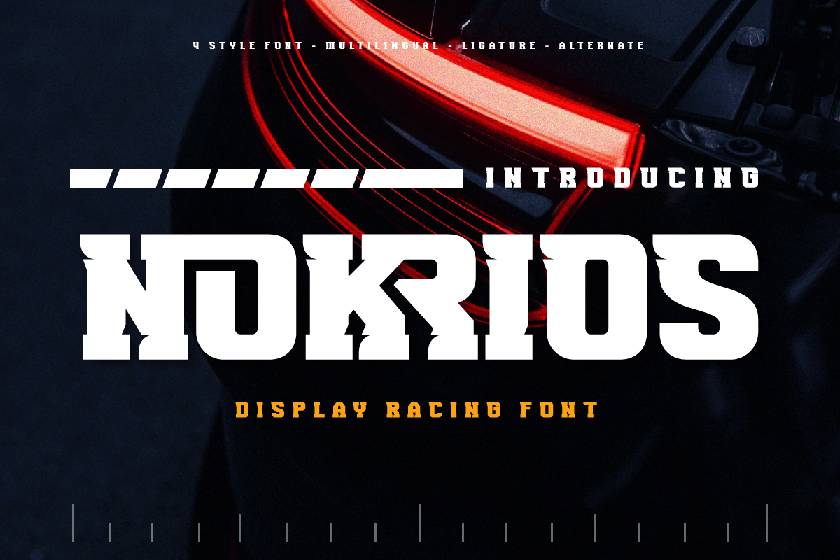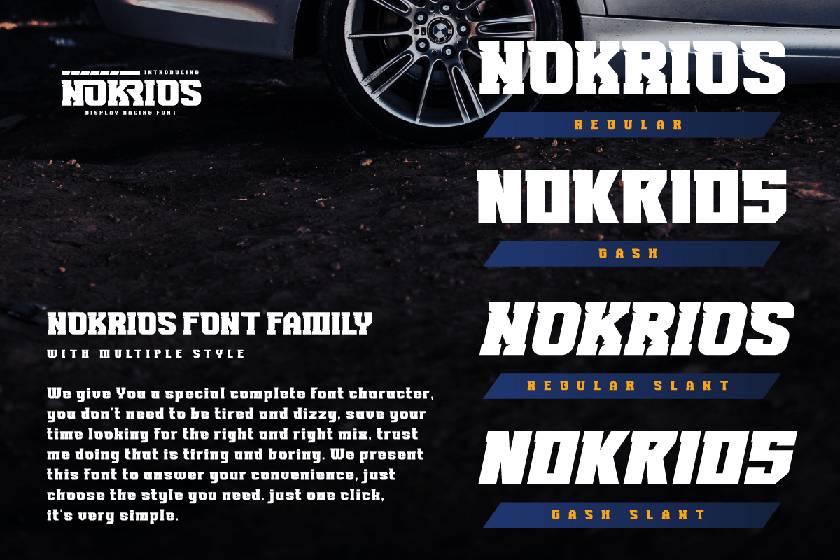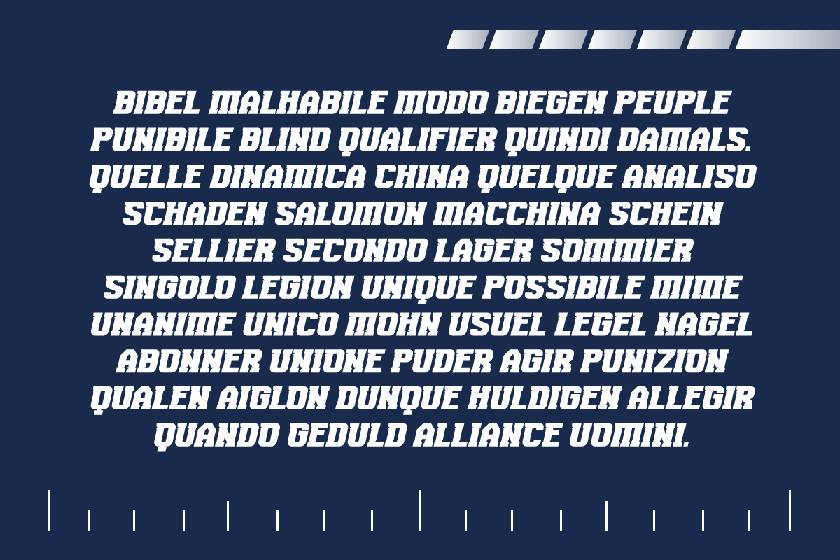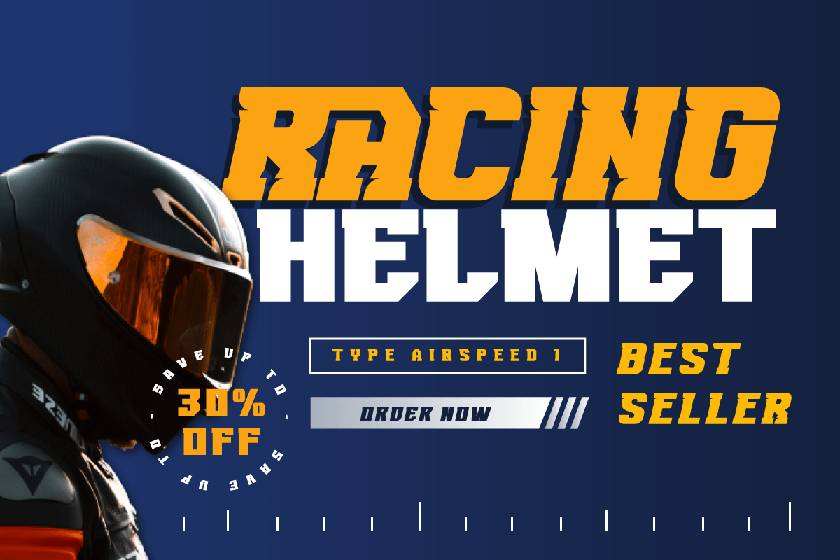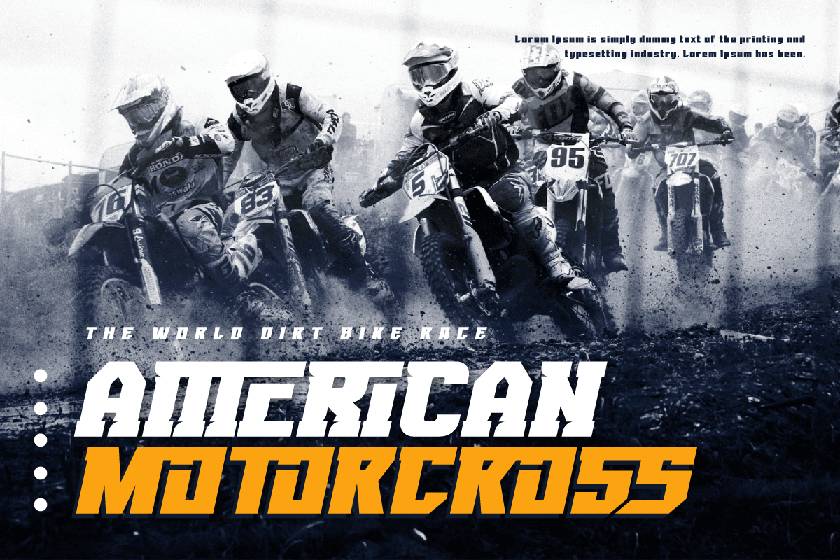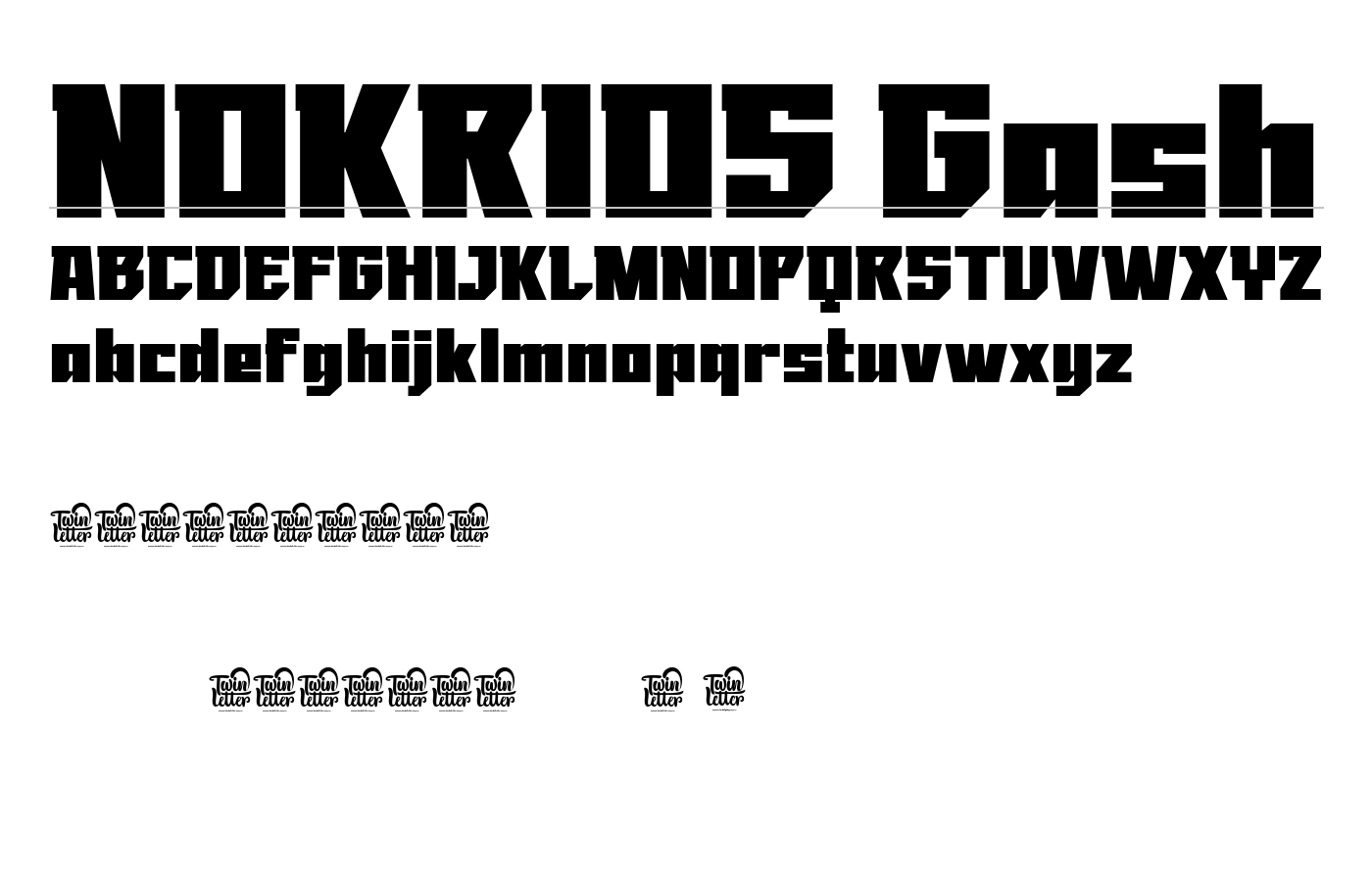
Nokrios is a bold, condensed slab serif font with a strong, geometric presence and high stroke contrast that commands attention. Its sharp, blocky letterforms with squared serifs give it a modern yet industrial feel, making it ideal for impactful headlines, posters, or branding that seeks a powerful, assertive style. This font works best where a striking, confident impression is needed, lending itself well to edgy, contemporary designs.
Nokrios Font
About Nokrios Font